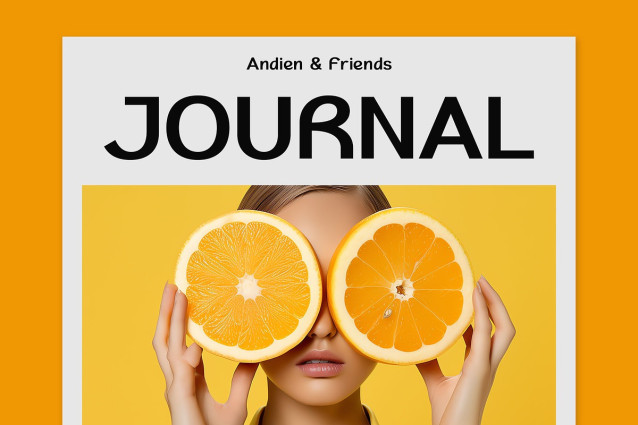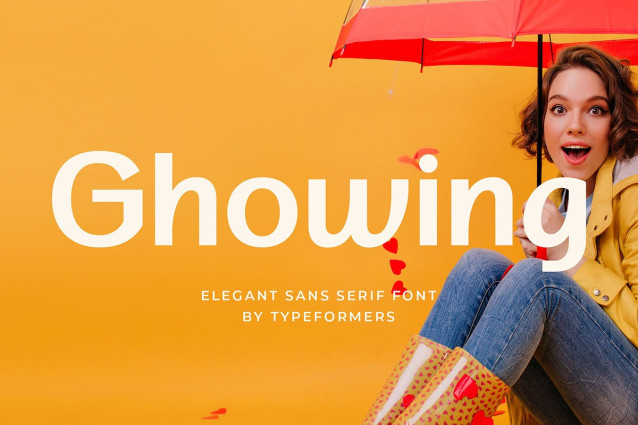
Ghowing Font
Ghowing Font – Elegant Sans Serif, is a modern and simple font, best used as a display for headings, logos, branding, magazines, product packaging and invitations.